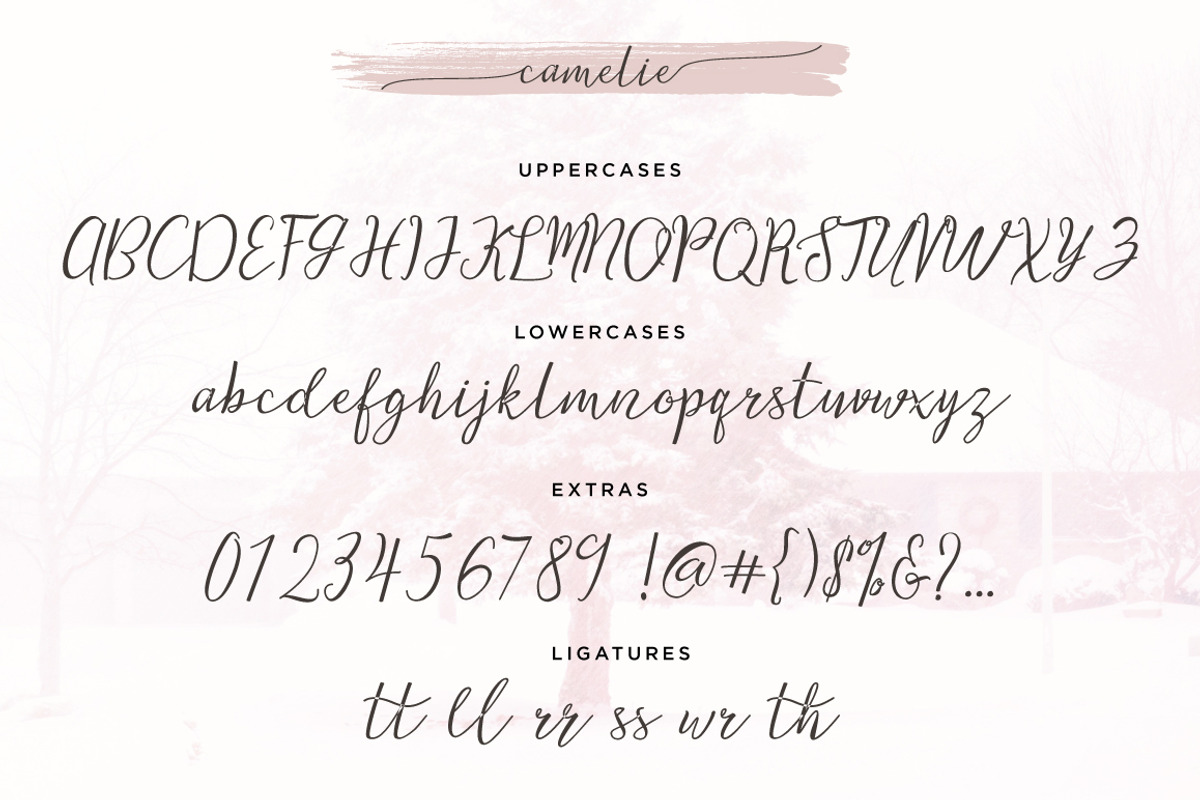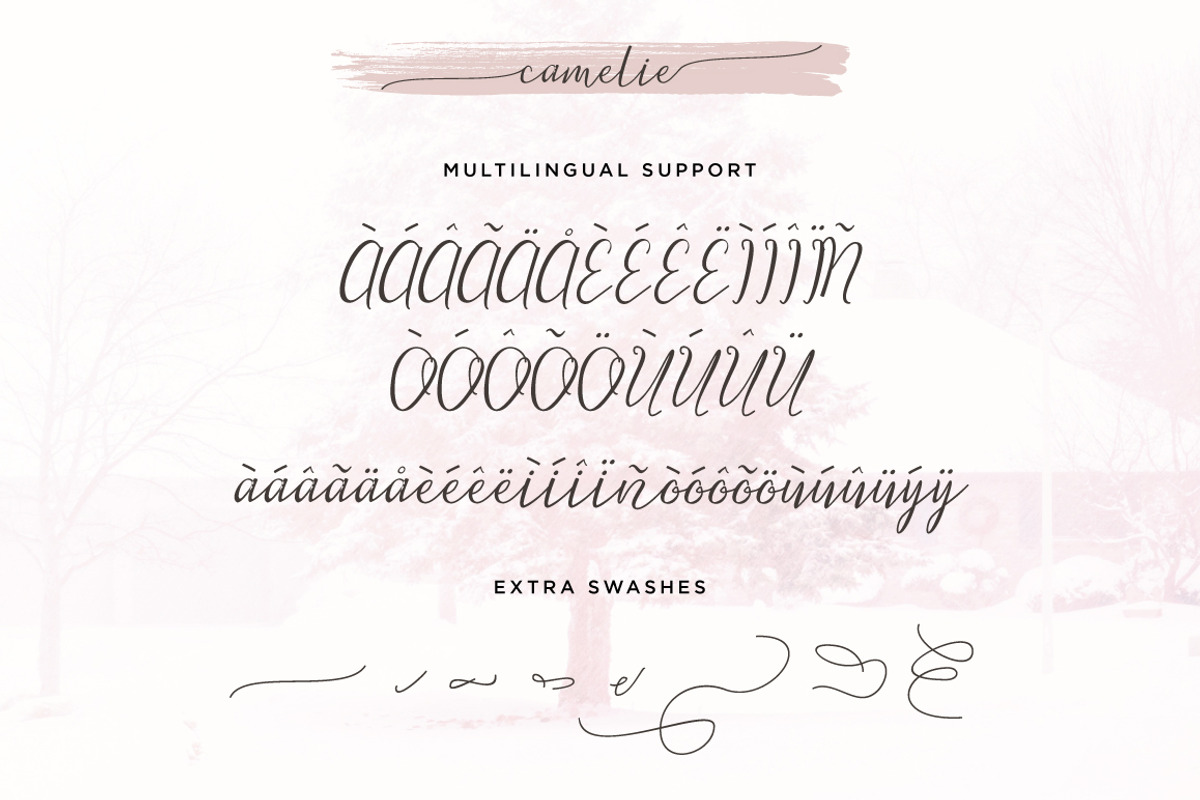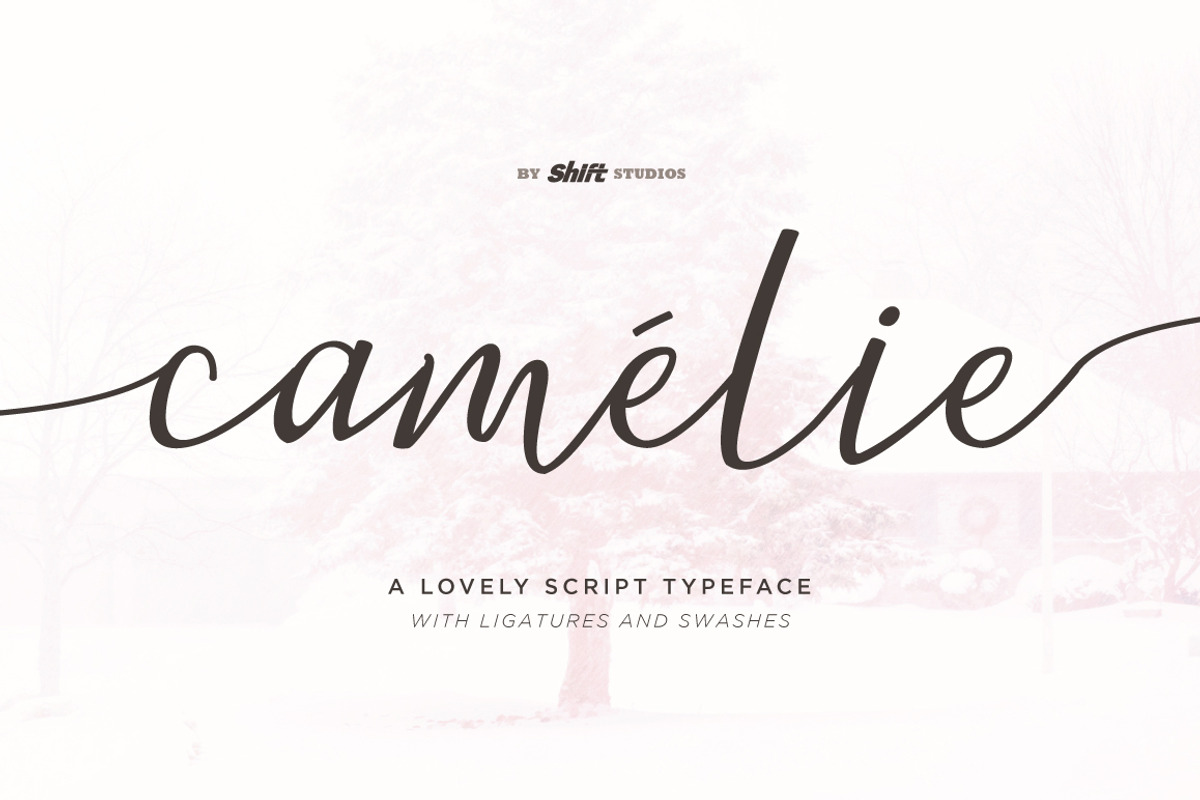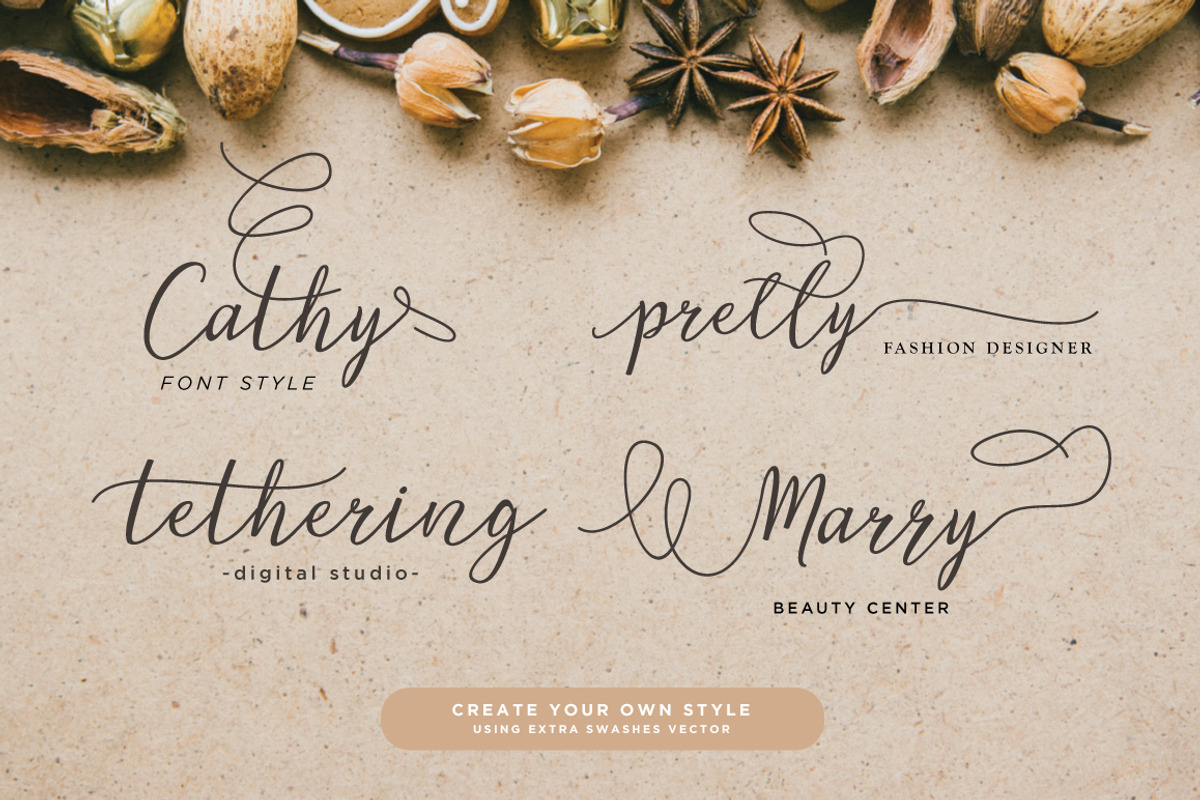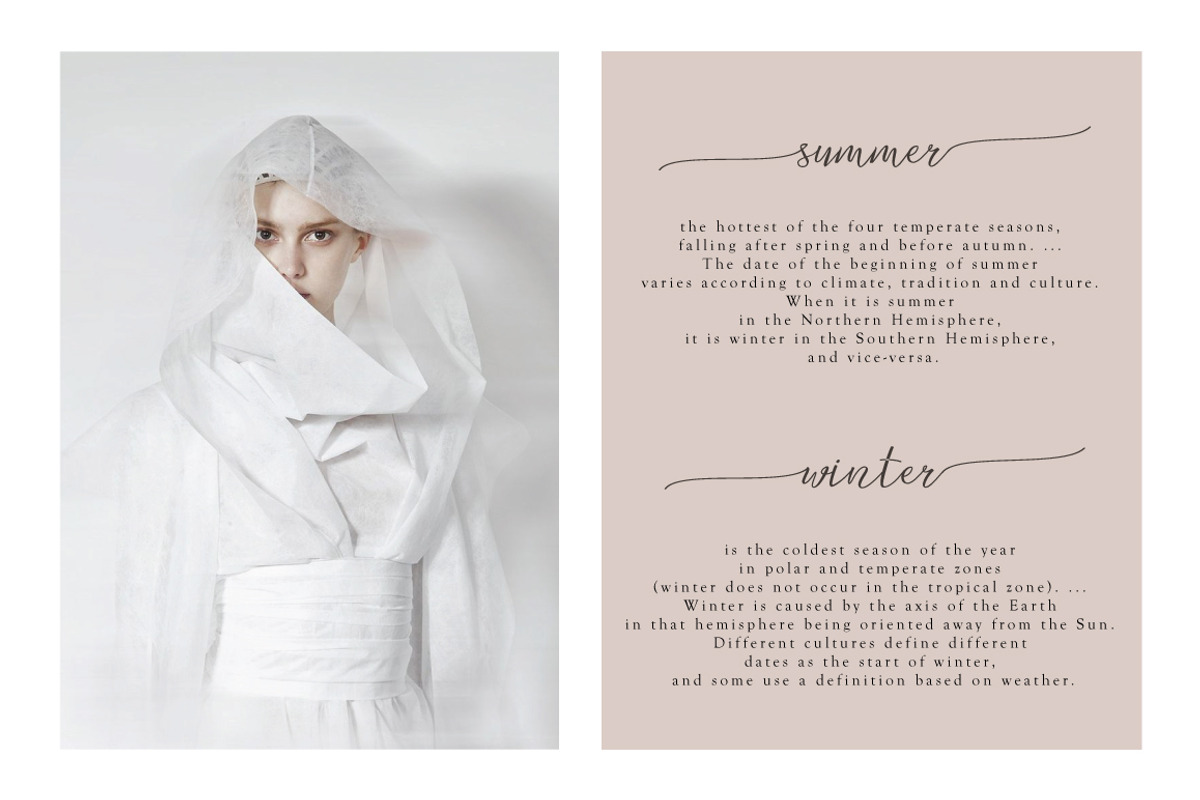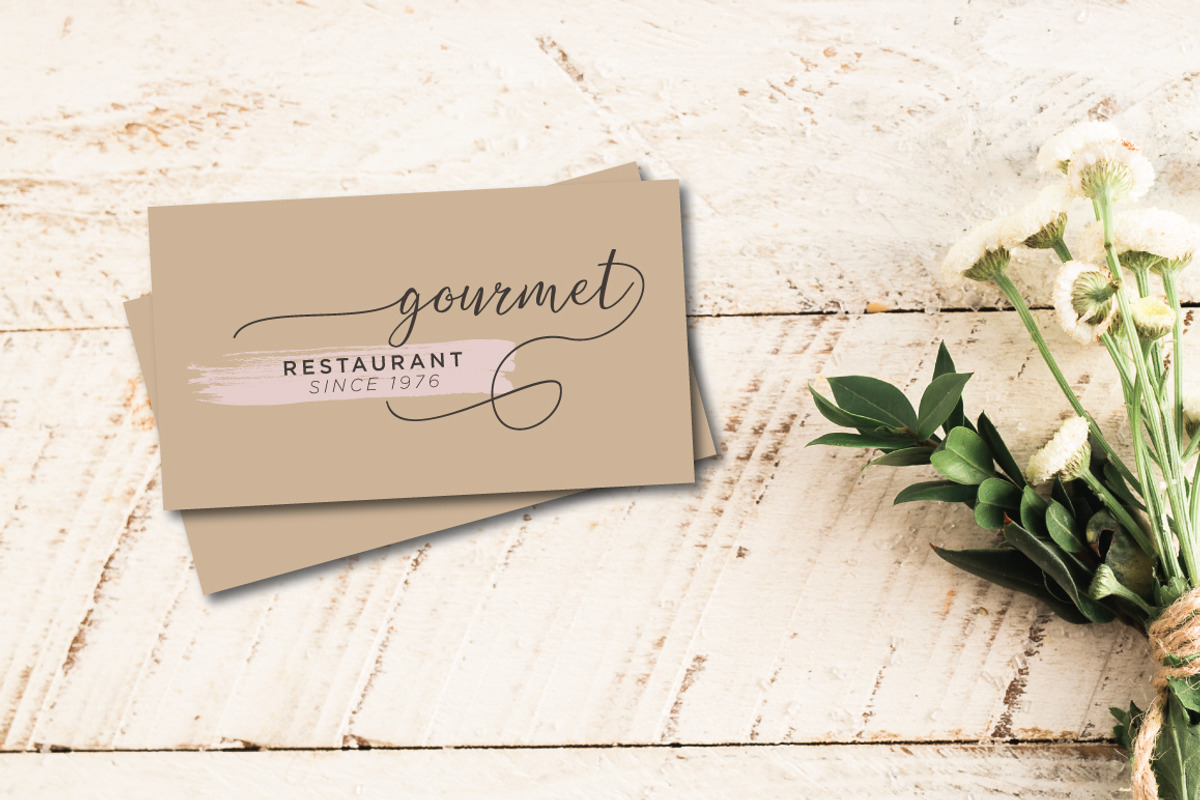
Camelie Typeface
Camelie font is a bouncy script style and handwriting font. This script font specifically established for beautiful and elegant handwriting looks and perfect also for your special branding.
Perfect for displays, headers, invitations, blogs, poster and so much more, Camelie will become a lively essential in your font collection!
- Ligatures + Swashes